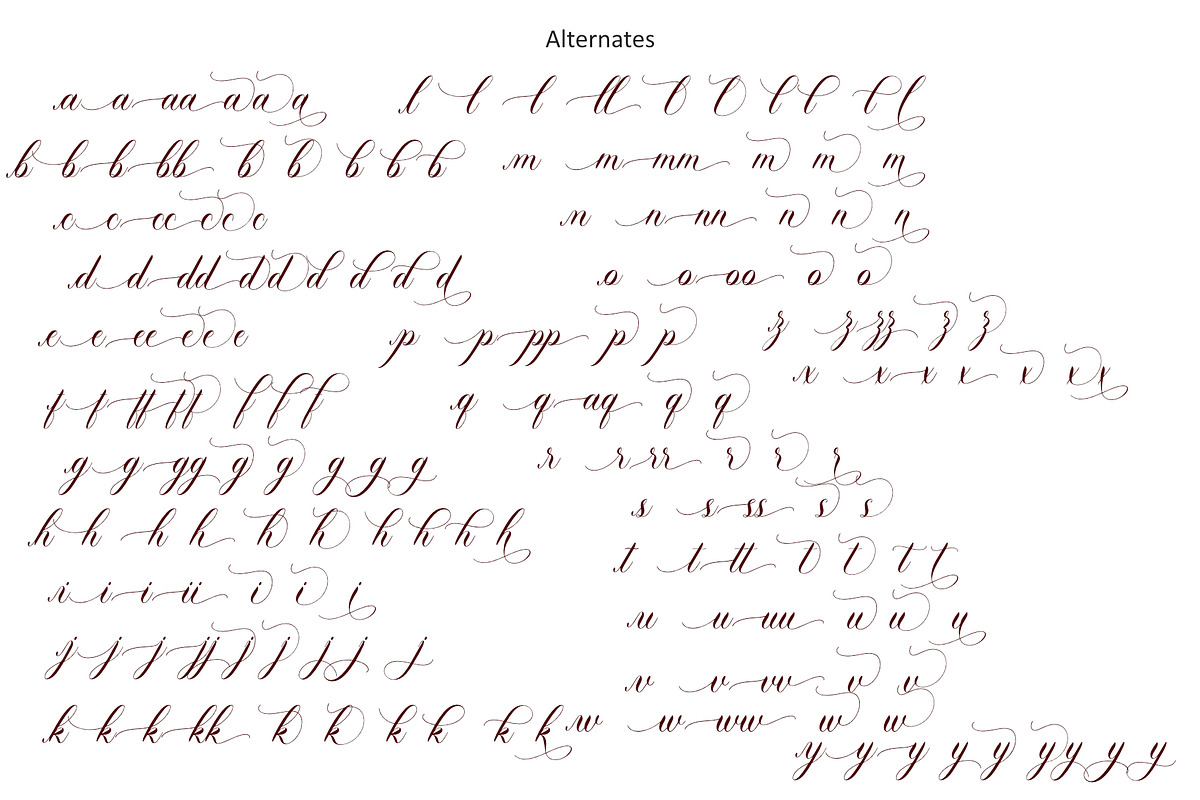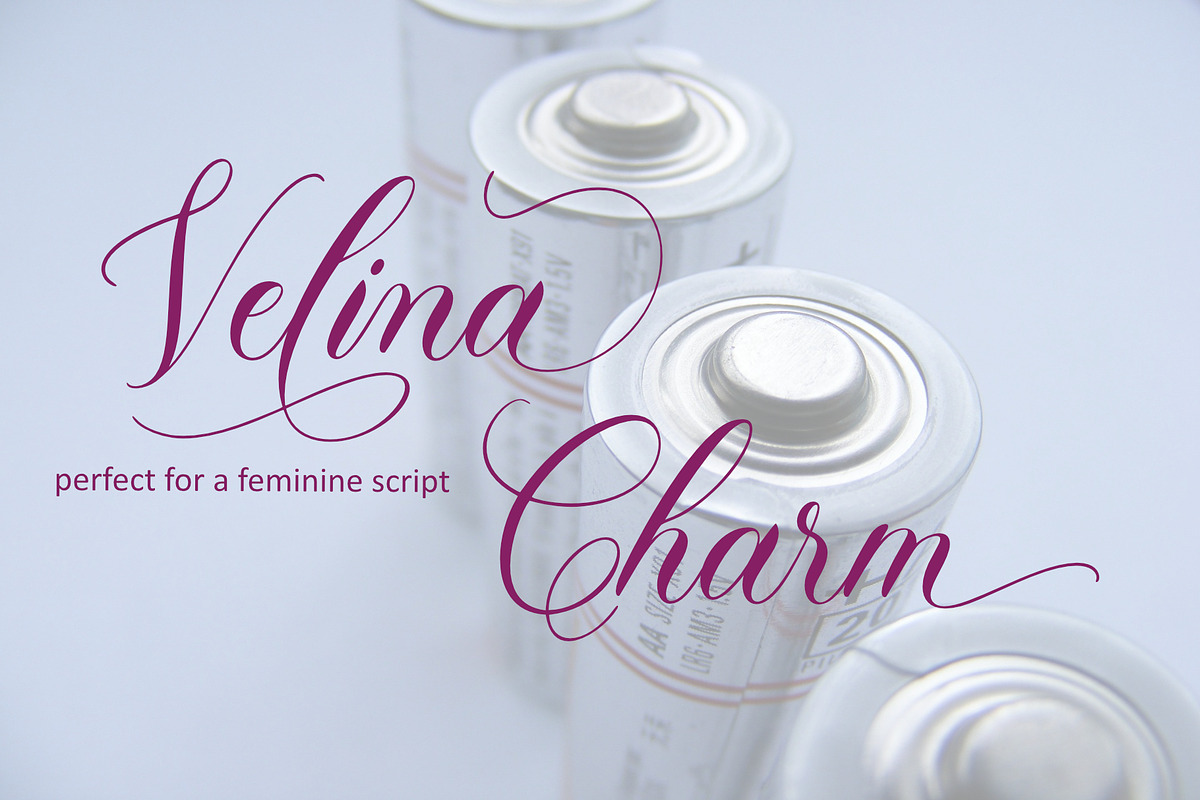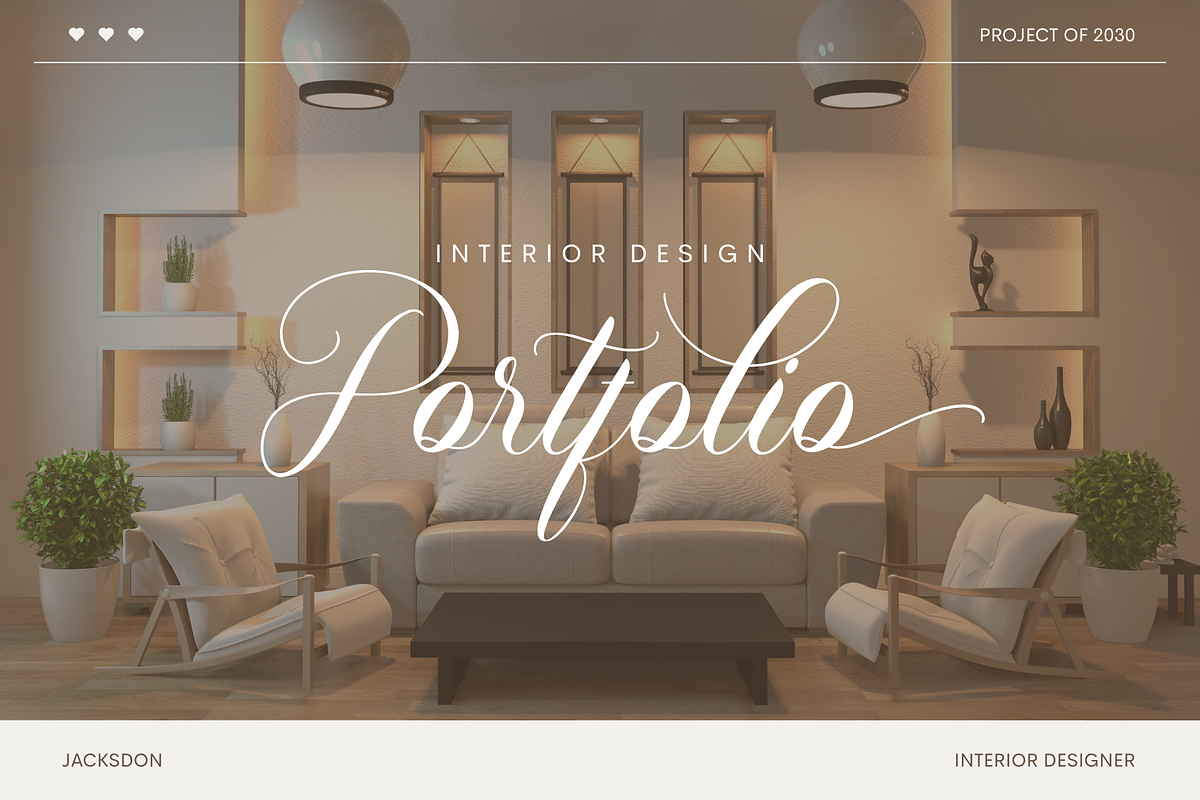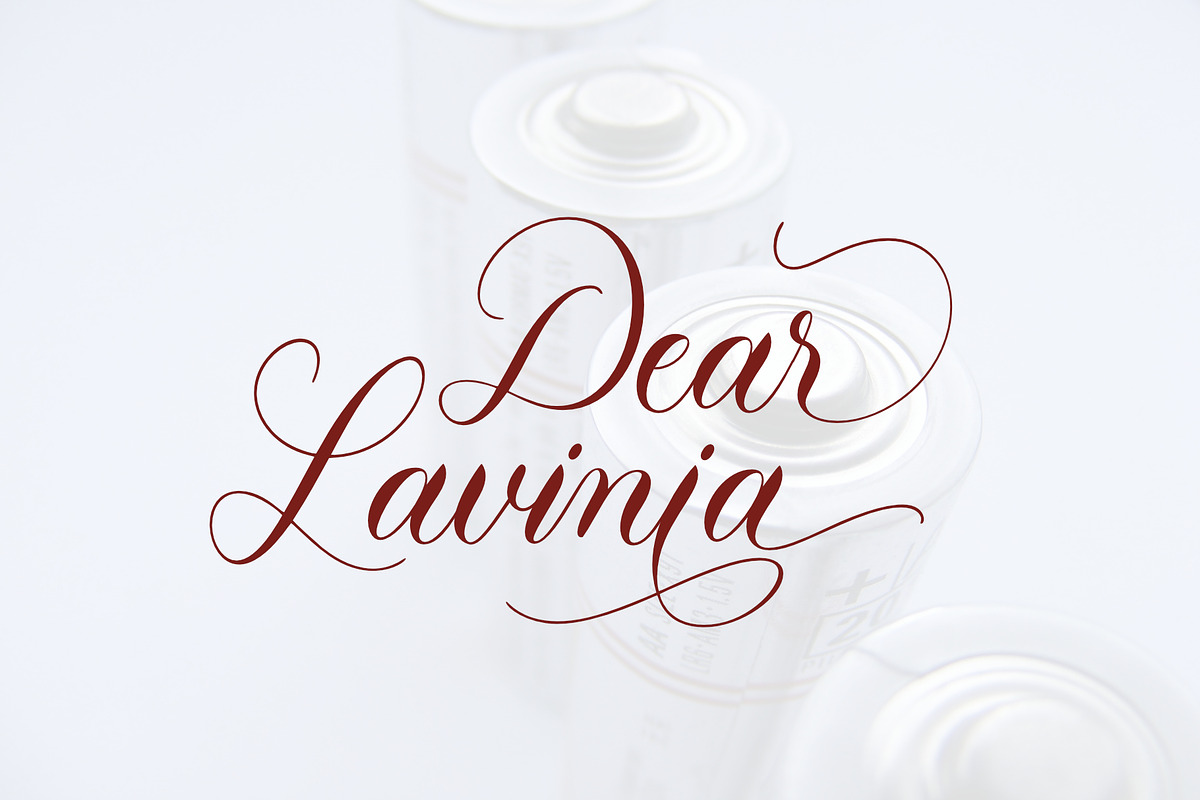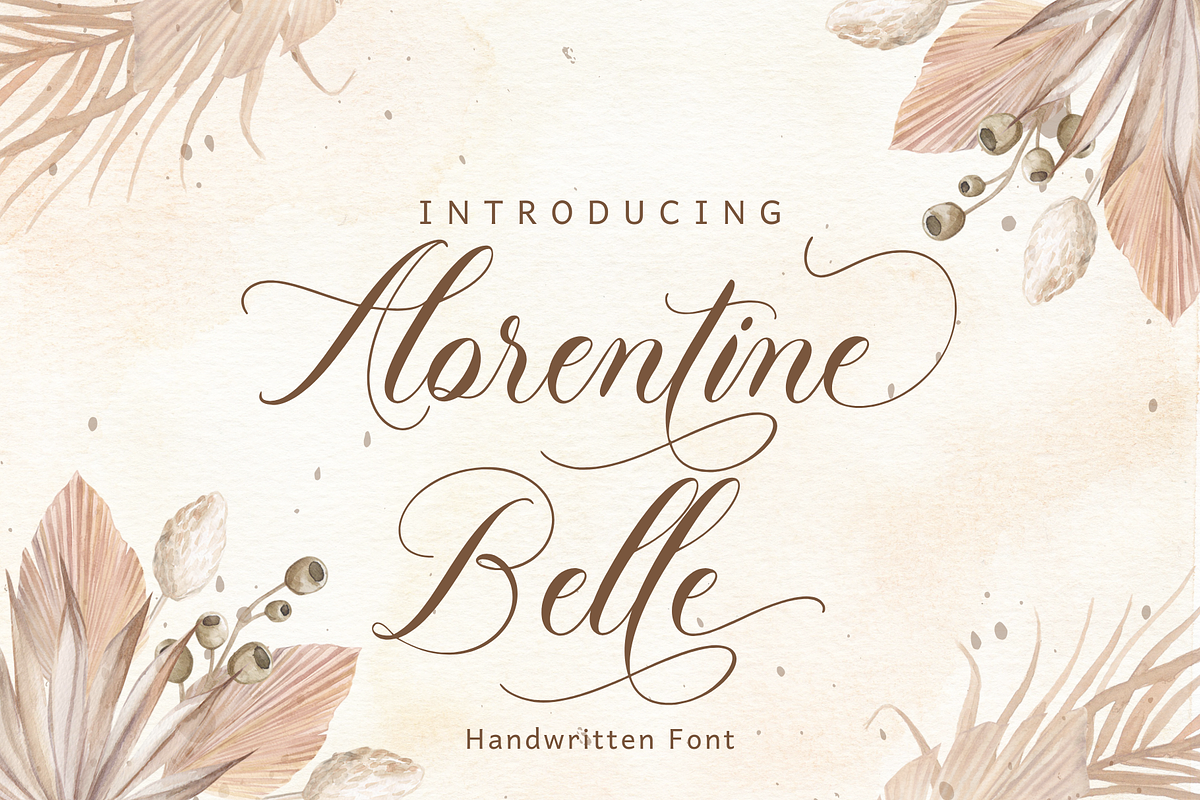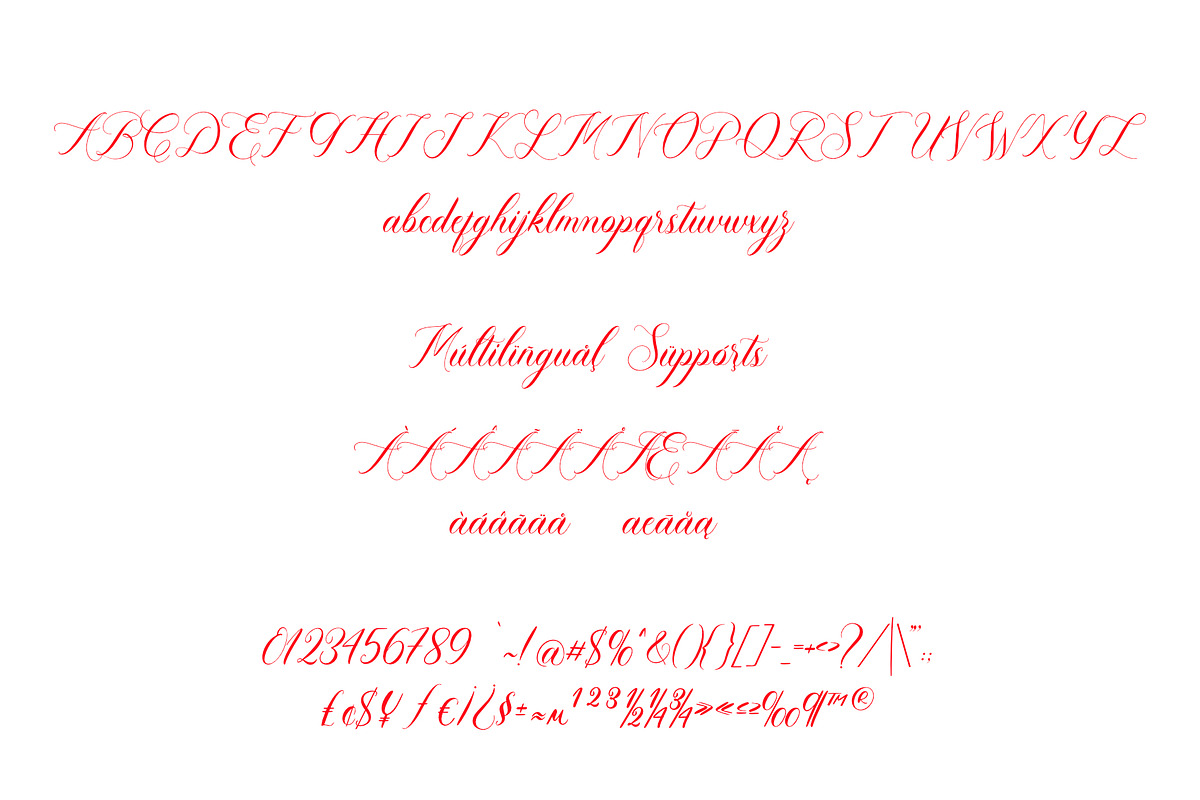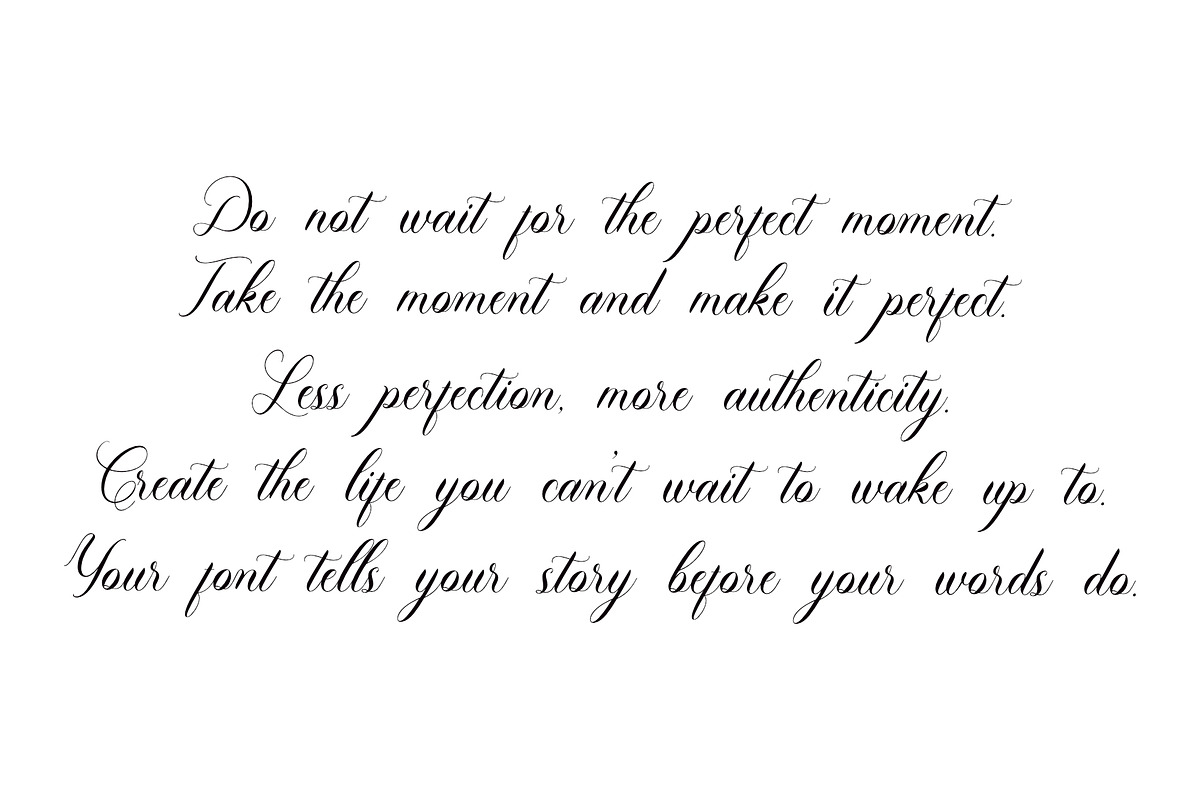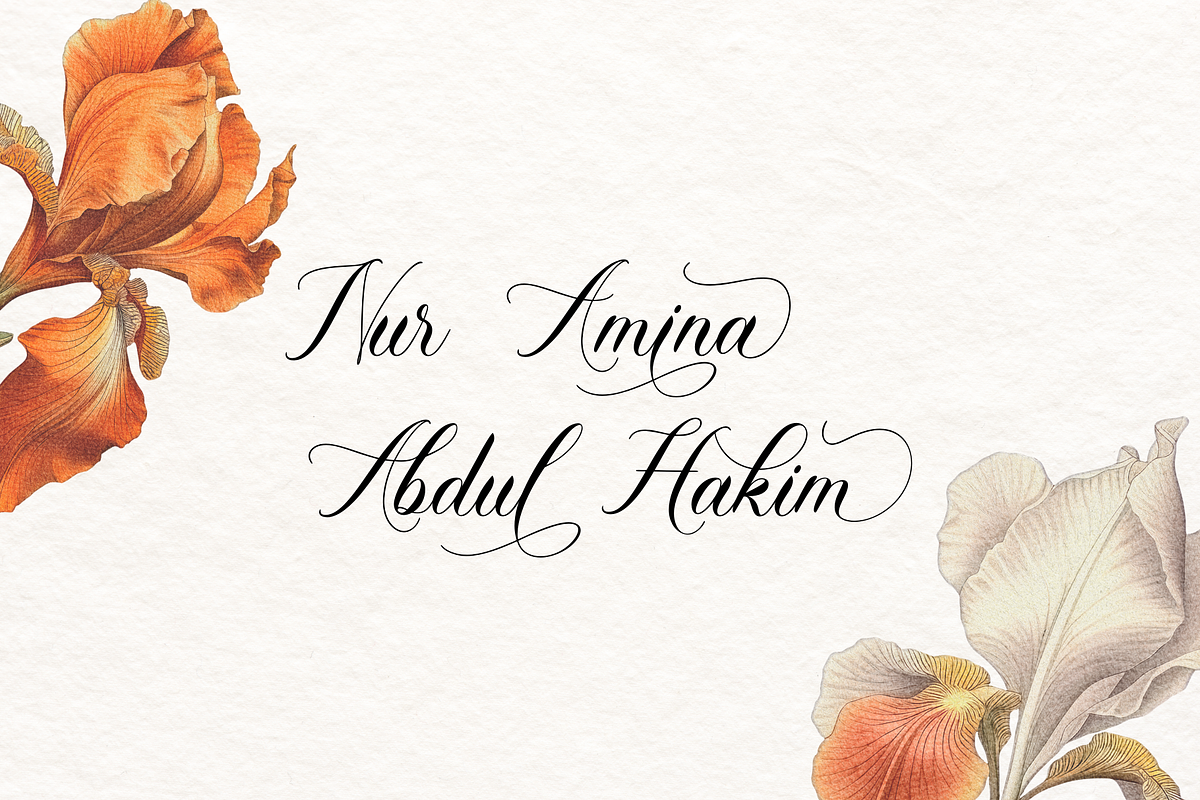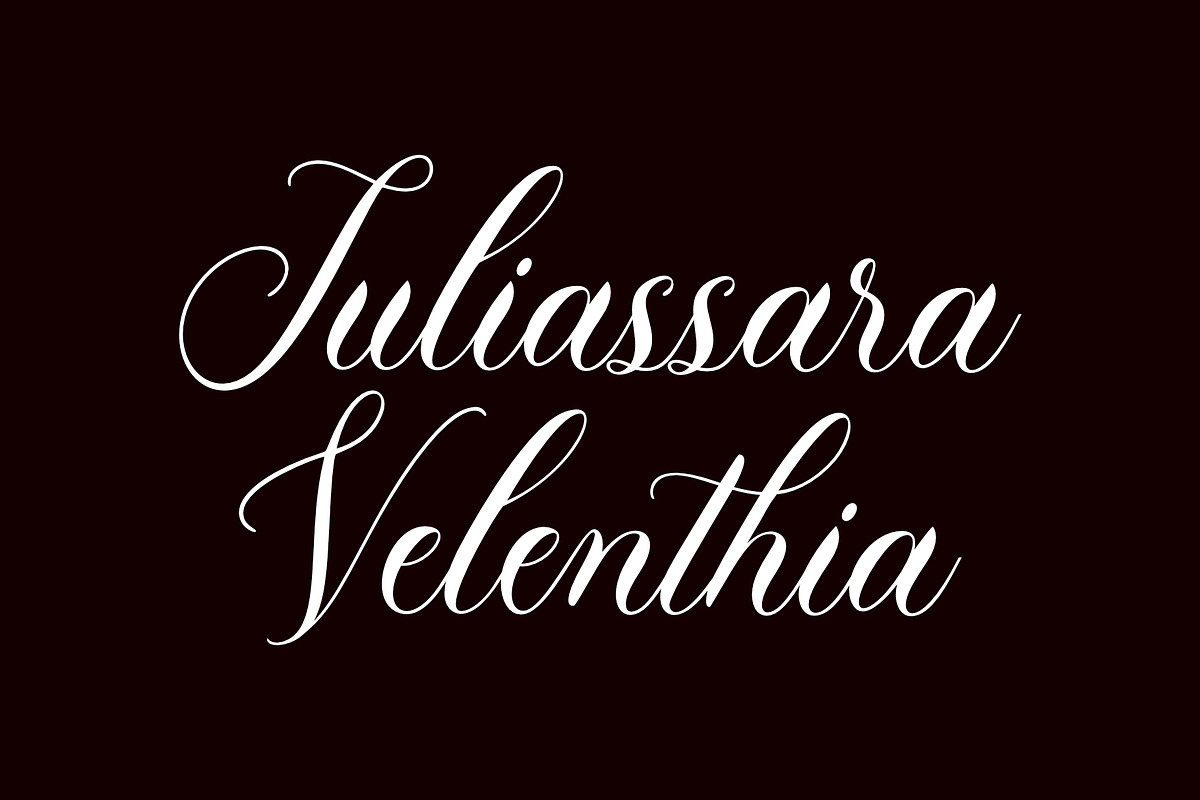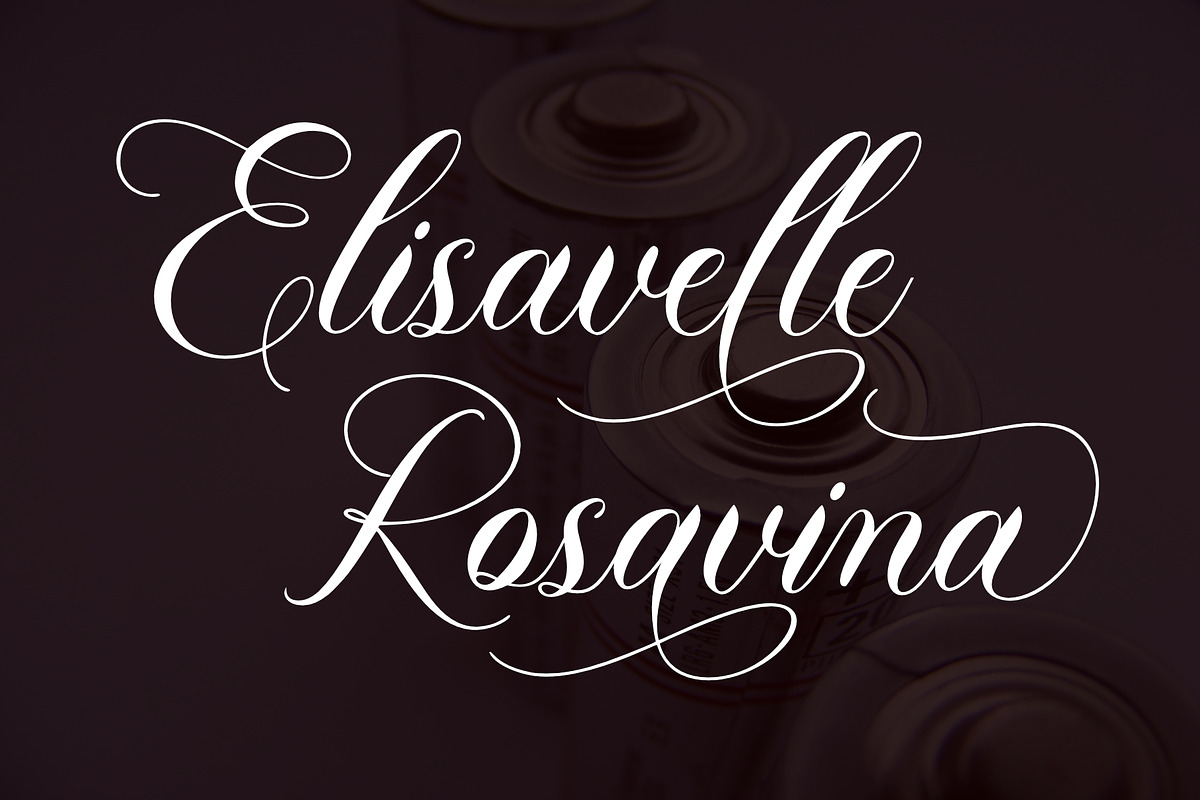
Alorentine Belle
Alorentine Belle is a luxurious script font that exudes elegance and sophistication. With its intricate swirls and delicate curves, it adds a touch of class to any design project. Perfect for branding, wedding invitations, and upscale events, this premium font is sure to make a statement.